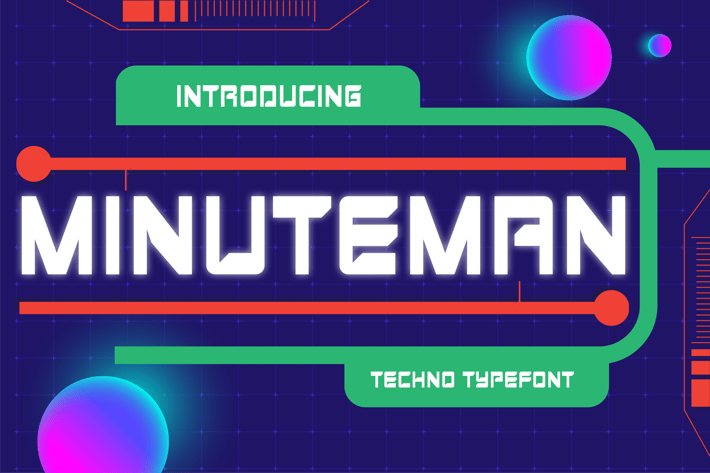
Minuteman Futuristic Font
With Minuteman, your designs will reach new frontiers of the future. This modern font draws inspiration from the clean lines of 8-bit graphics and the geometric shapes of space-age technology, creating a striking visual style perfect for sci-fi, tech, and gaming designs. Whether you're creating space-themed event posters, YouTube covers, or social media page covers, Minuteman's minimalistic yet futuristic design will launch your designs into the stratosphere. Don't wait – take your designs to new heights with Minuteman.